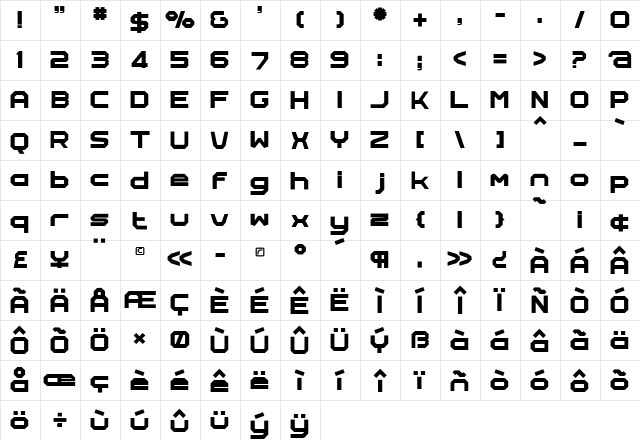
Rally Regular
Design Context for Rally Typeface
Rally offers clean, dependable letterforms without strong stylistic allegiance, making it a practical choice for designers who need flexibility.